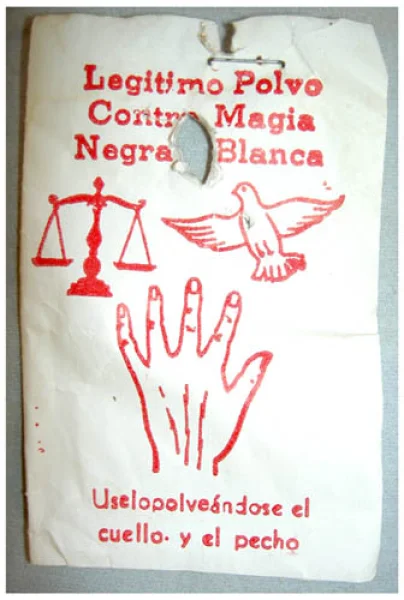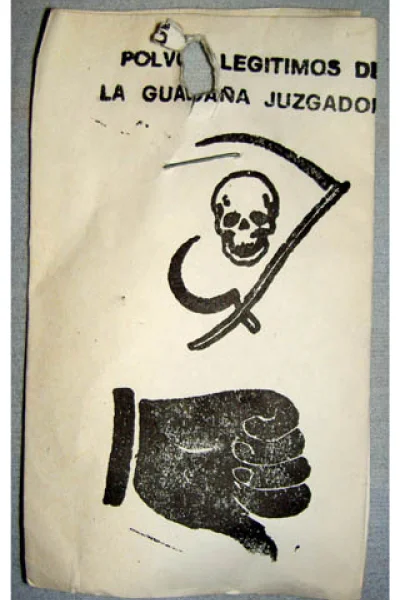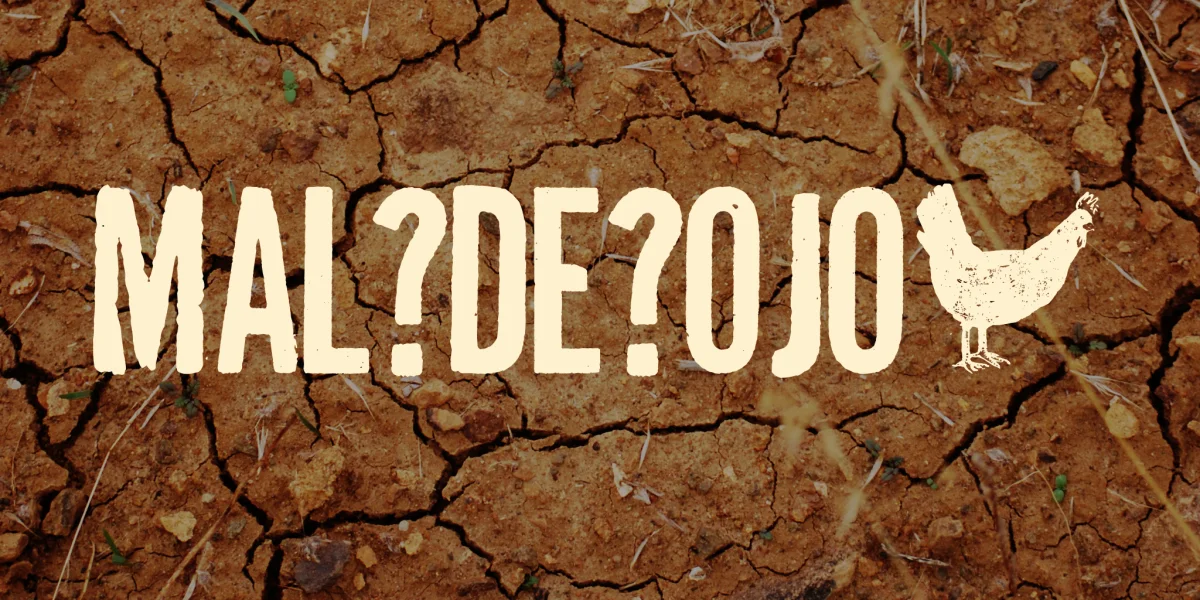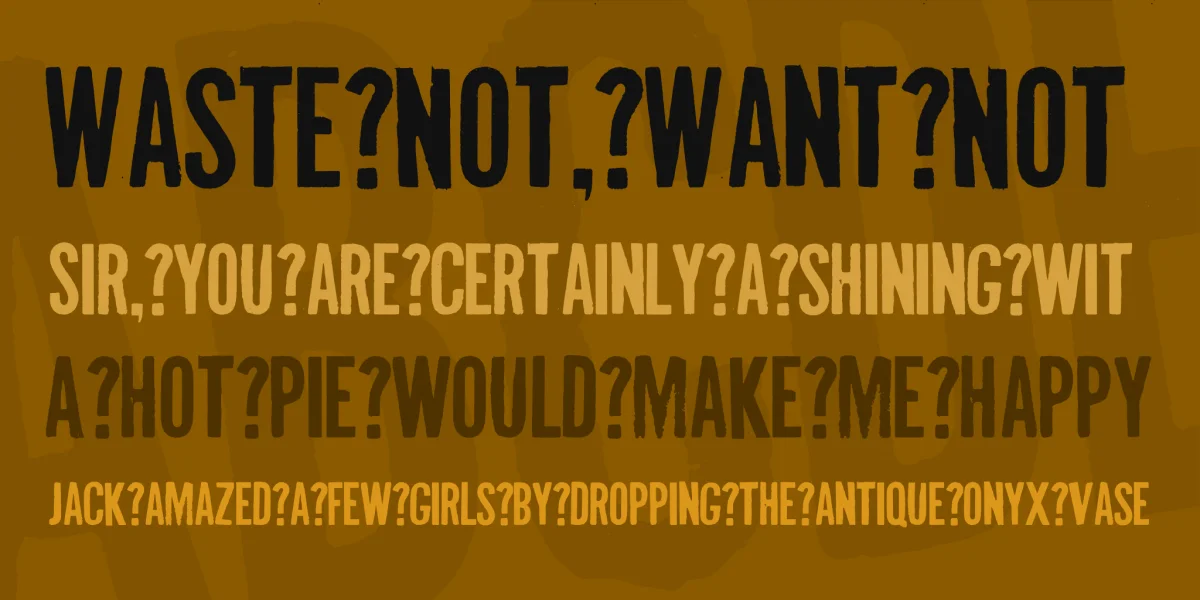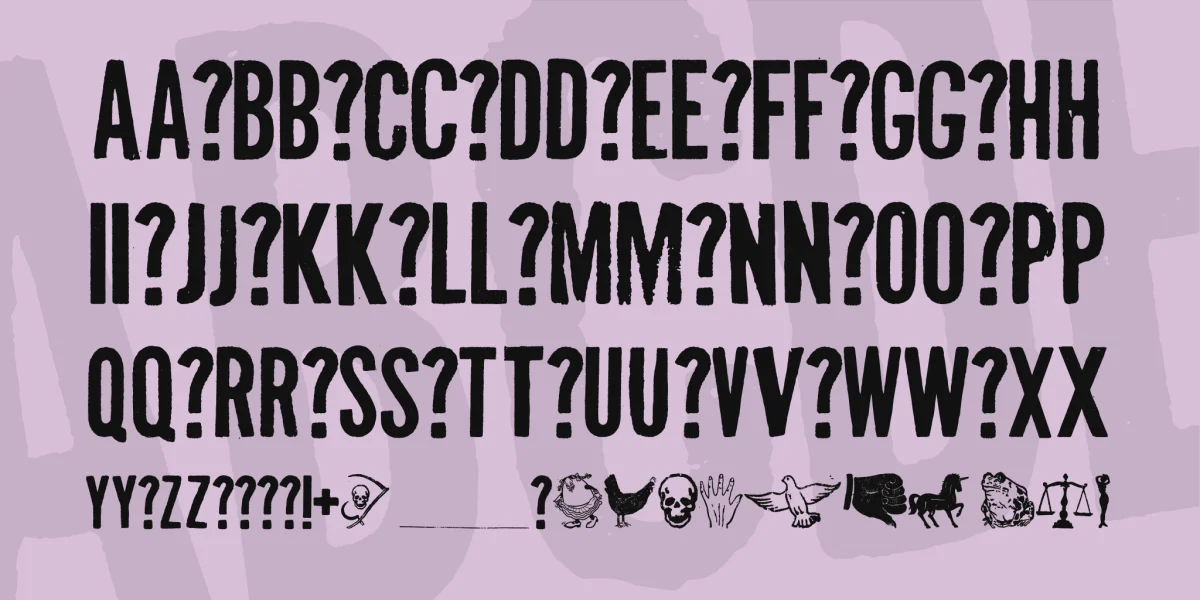
This font was made by scanning bizarre religious
booklets & spiritual powder packets that I found in
esoterica spiritual stores in Oaxaca, Mexico.
My favorite pamphlet was called 'WHAT ARE THE TROLLS
AND HOW DO THEY HELP US?'.
The original text and images were letterpressed, but
they've been mimiographed and photocopied looks like
thousands of times.